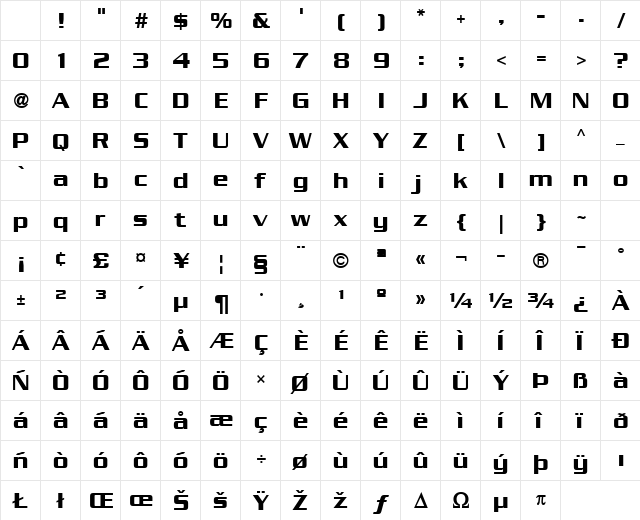
Serpentine Sans ICG Regular
Serpentine Sans ICG Family
Design Context for Serpentine Sans ICG
Serpentine Sans ICG is a composed and adaptable typeface that performs quietly and consistently across a wide range of design contexts.